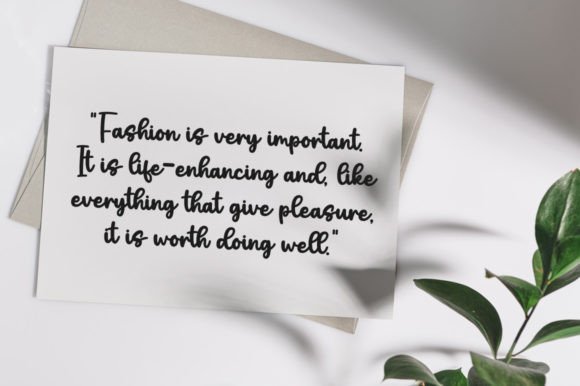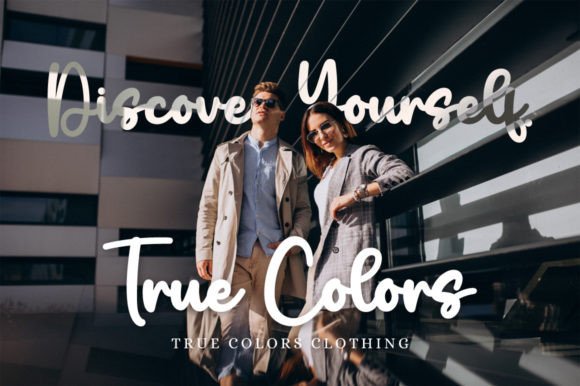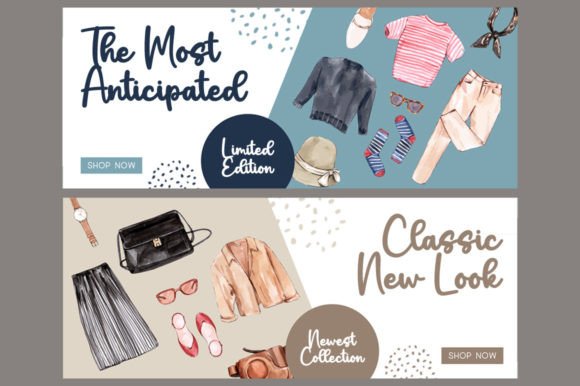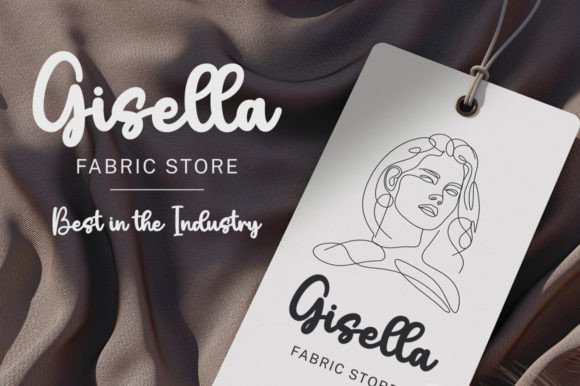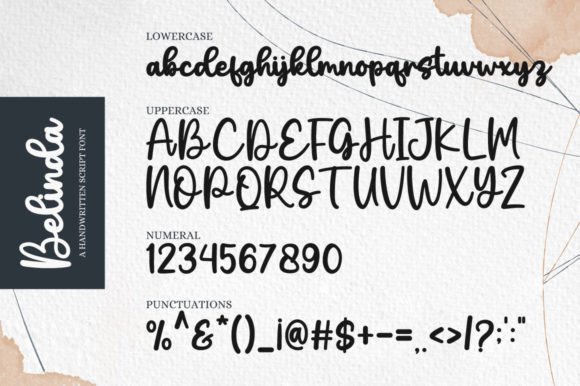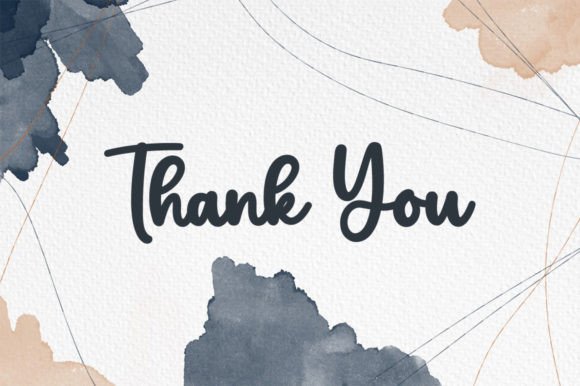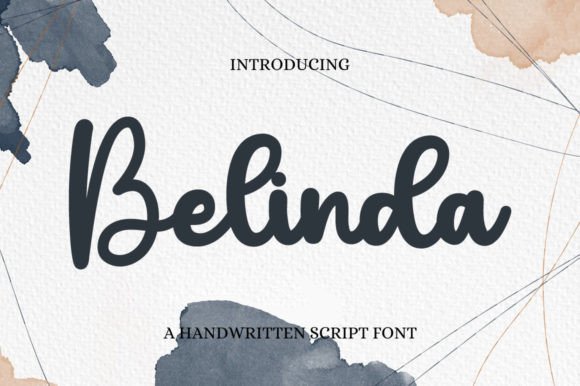
Introducing Belinda Font: A Lovely and Timeless Handwritten Font
Are you a designer or crafter looking for a font that can add a touch of elegance and sophistication to your projects? Look no further than Belinda Font, a beautiful and timeless handwritten font that is perfect for creating eye-catching logos, branding, and quotes.
What is Belinda Font?
Belinda Font is a carefully crafted handwritten font that exudes a sense of warmth and personality. Its unique and flowing script makes it perfect for a wide range of design projects, from logos and branding to quotes and social media graphics. Whether you’re looking to create a cohesive brand identity or simply want to add a personal touch to your designs, Belinda Font is an excellent choice.
Key Features of Belinda Font
- Handwritten script: Belinda Font features a beautiful, handwritten script that is both elegant and approachable.
- Timeless design: Unlike trendy fonts that can quickly go out of style, Belinda Font has a timeless quality that ensures it will remain relevant for years to come.
- Versatile: Belinda Font can be used for a wide range of design projects, from logos and branding to quotes and social media graphics.
- Easily readable: Despite its elegant script, Belinda Font is surprisingly easy to read, making it perfect for use in both digital and print applications.
Why Choose Belinda Font?
So why should you choose Belinda Font for your design projects? Here are just a few compelling reasons:
- Unique and distinctive: Belinda Font is a one-of-a-kind font that can help your designs stand out from the crowd.
- Emotional connection: The handwritten script of Belinda Font creates an emotional connection with the viewer, making it perfect for use in branding and advertising.
- Easy to use: Belinda Font is incredibly easy to use, even for designers who are new to working with handwritten fonts.
- High-quality: Belinda Font is a high-quality font that is designed to deliver exceptional results in a wide range of design applications.
How to Use Belinda Font
Belinda Font is incredibly versatile and can be used in a wide range of design projects. Here are a few ideas to get you started:
- Logos and branding: Use Belinda Font to create a unique and memorable logo that reflects your brand’s personality.
- Quotes and social media graphics: Add a touch of elegance and sophistication to your quotes and social media graphics with Belinda Font.
- Invitations and stationery: Use Belinda Font to create beautiful invitations, stationery, and other paper goods.
- Packaging and product design: Add a personal touch to your packaging and product design with Belinda Font.
Tips and Tricks for Working with Belinda Font
Here are a few tips and tricks to help you get the most out of Belinda Font:
- Experiment with different colors: Belinda Font looks great in a wide range of colors, so don’t be afraid to experiment and find the perfect hue for your design.
- Play with font sizes: Belinda Font can be used at a wide range of font sizes, from large and bold to small and delicate.
- Add texture and patterns: Consider adding texture and patterns to your design to give it an extra layer of depth and interest.
In conclusion, Belinda Font is a lovely and timeless handwritten font that is perfect for designers and crafters looking to add a touch of elegance and sophistication to their projects. With its unique and flowing script, Belinda Font is sure to become a go-to font in your design arsenal. So why wait? Download Belinda Font today and start creating beautiful, eye-catching designs that will leave a lasting impression.